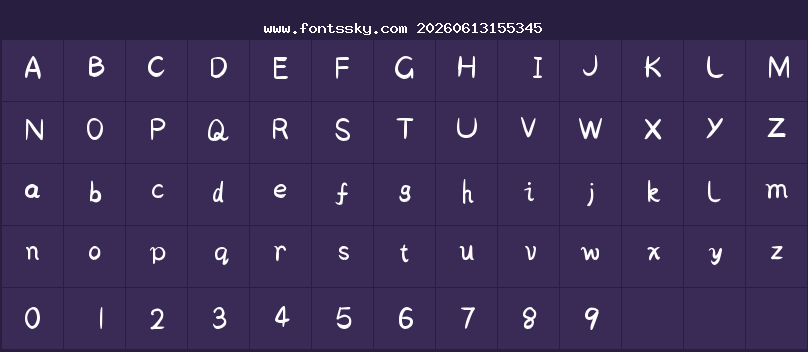
刘欢卡通手书 Preview
• Font Name: 刘欢卡通手书
• Font ID: Liu Huan KaTong ShouShu:Version 1.00
• Full Font Name: 刘欢卡通手书
• Version: Version 1.00 February 19, 2022, initial release
• PostScript Name: LiuHuanKaTongShouShu
• Character Count: 6870
About 刘欢卡通手书.ttf
刘欢卡通手书.ttf is a modern, elegant sans-serif font designed for ultimate readability and visual harmony. Perfect for branding, headlines, web design, and print materials.